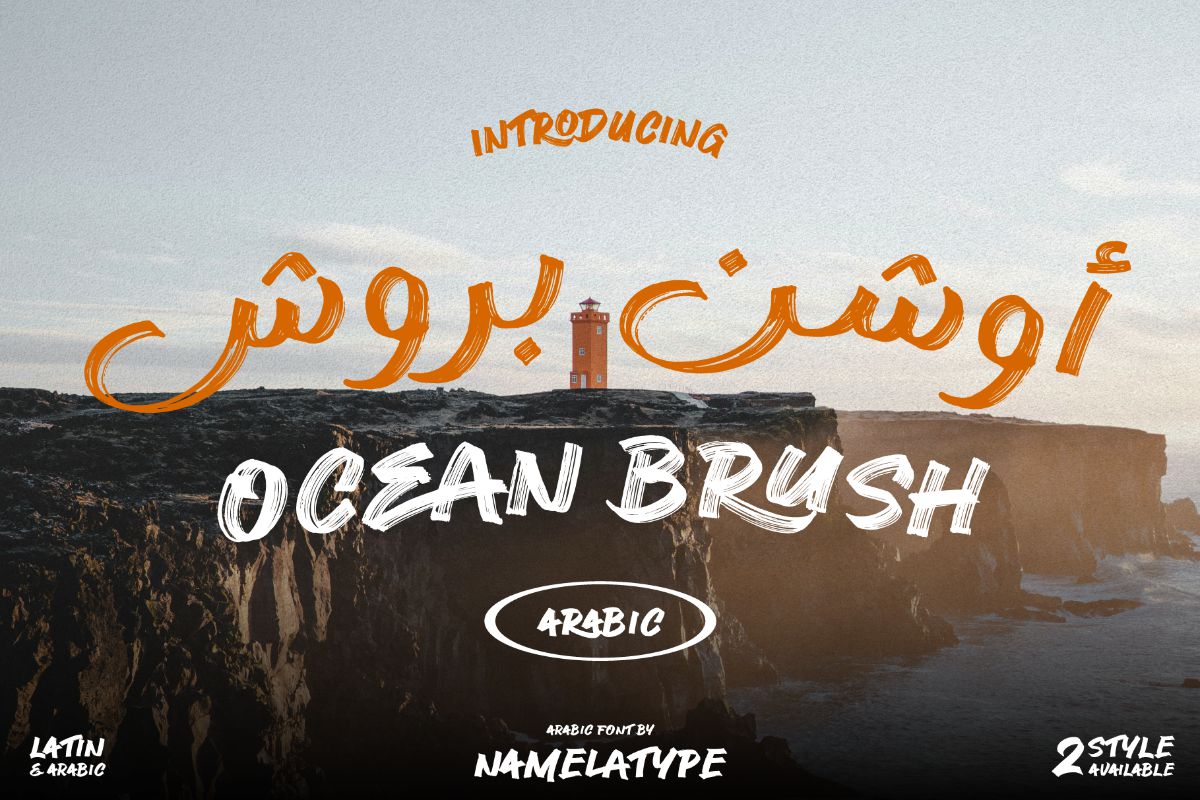
Ocean Brush Arabic Texture
Ocean Brush Arabic Font - A Fluid Handwritten Brush Typeface for Web & Broadcast Arabic typography has always been defined by motion—letters that connect, flow, and evolve within each word. Ocean Brush Arabic Fluid Handwritten Font builds on that foundation, amplifying it with the expressive energy of a brush font. The result is a dynamic Arabic font that feels alive, emotional, and visually powerful. Rather than simply displaying text, this typeface transforms it into a moving visual experien